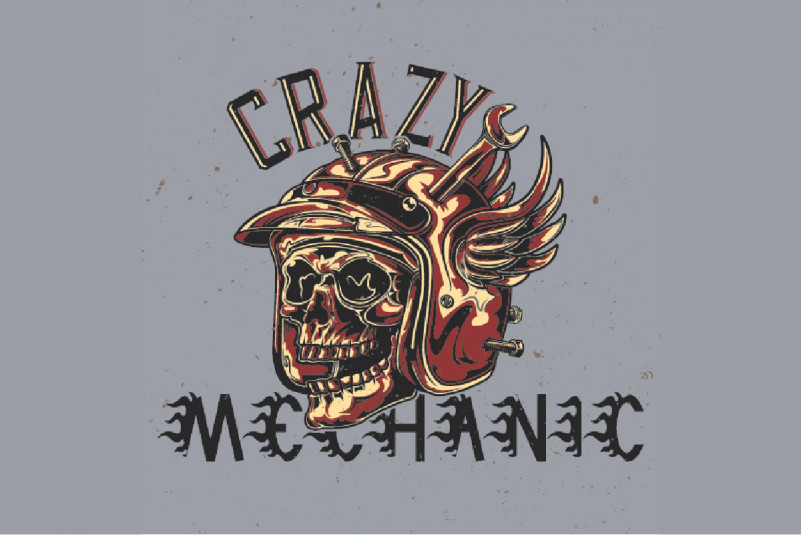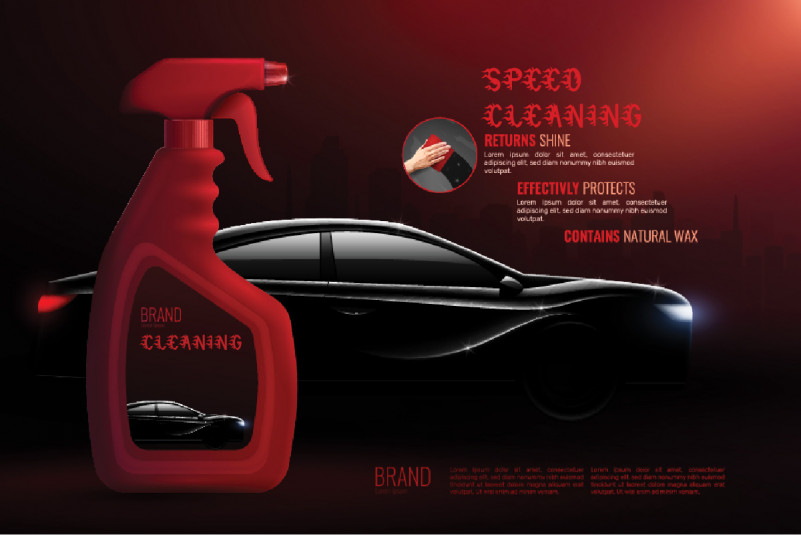
Fire Speed Display Font
This font is remotely made by RaisProject team in Indonesia. Fire Speed has three styles : Regular, Italic and Outline. The font was handcrafted for any your special projects including : brands, promotion, events, games, advertising, magazine, signage, invitation, stationery, social media posts, label, or and any projects that need unique style. The industries for this font is Comic, Events, Games, Magazine, Music, Movies, Cafe, Motor Club, Racing etc